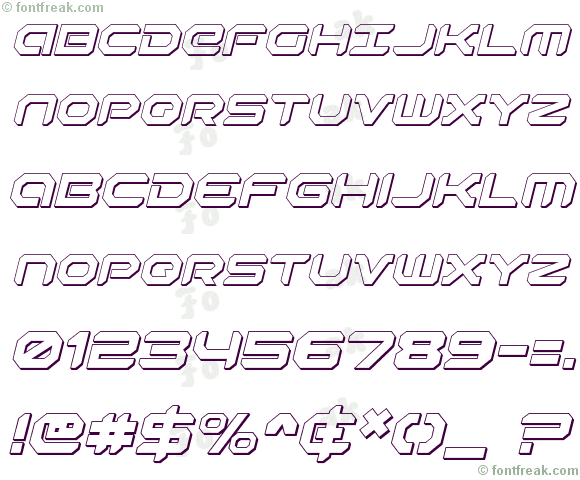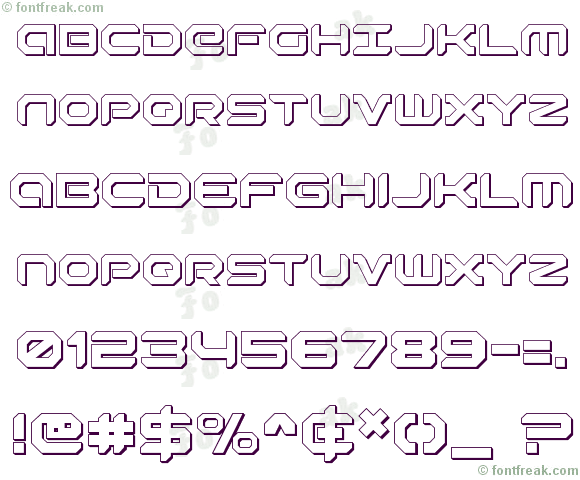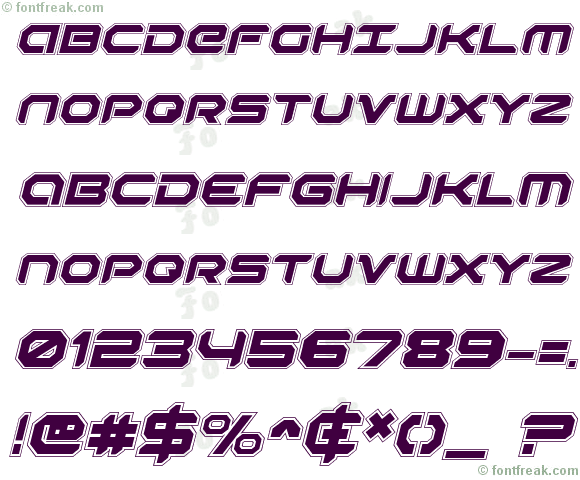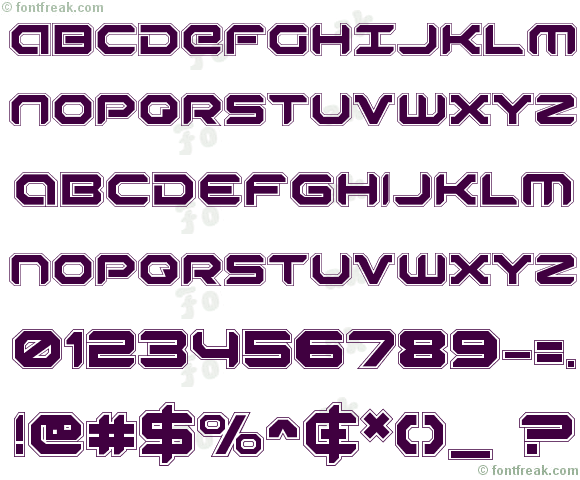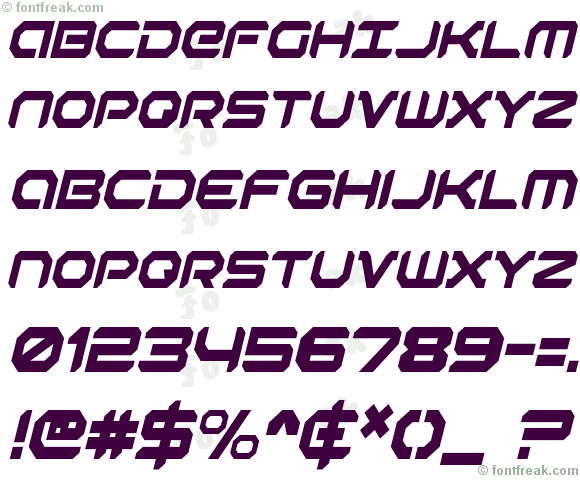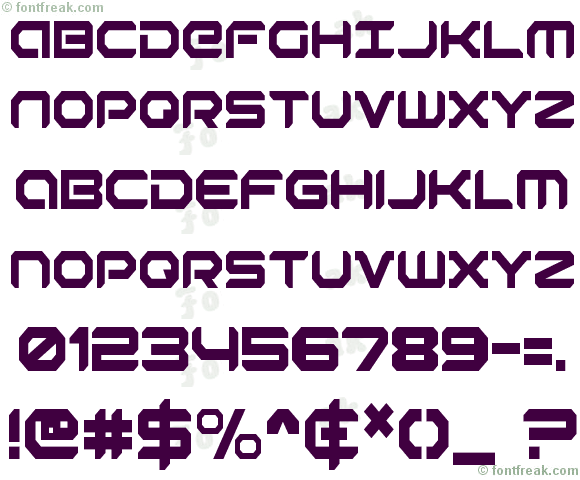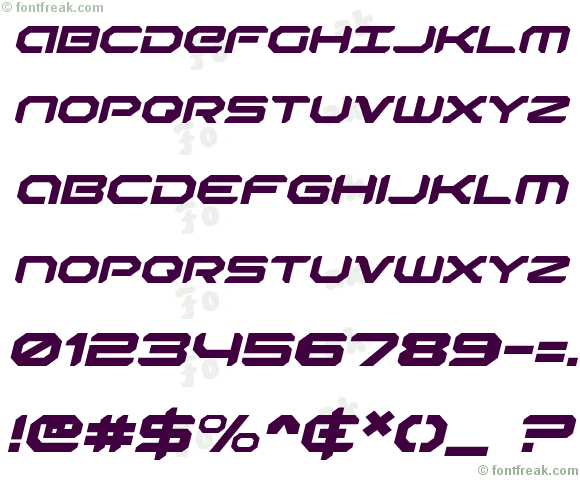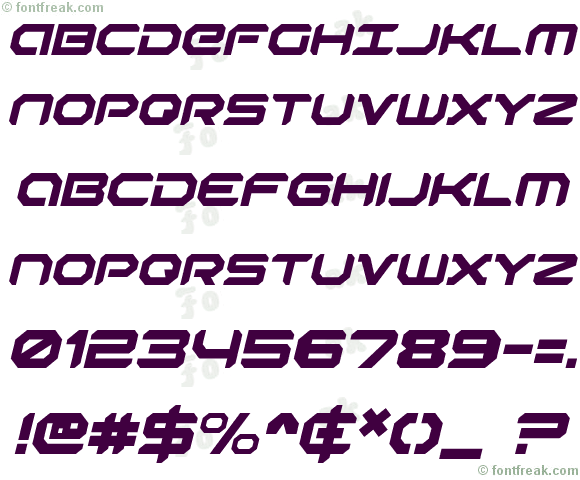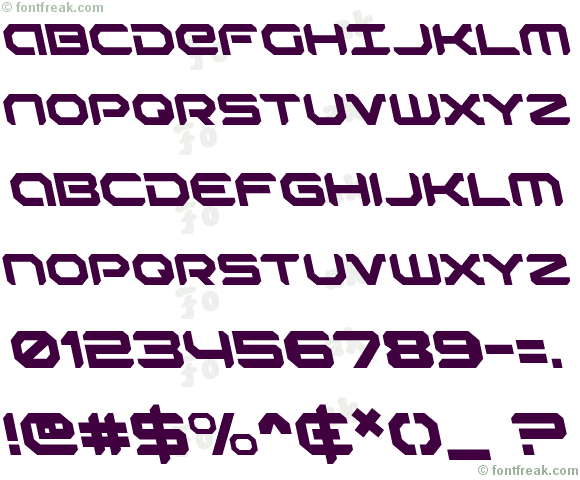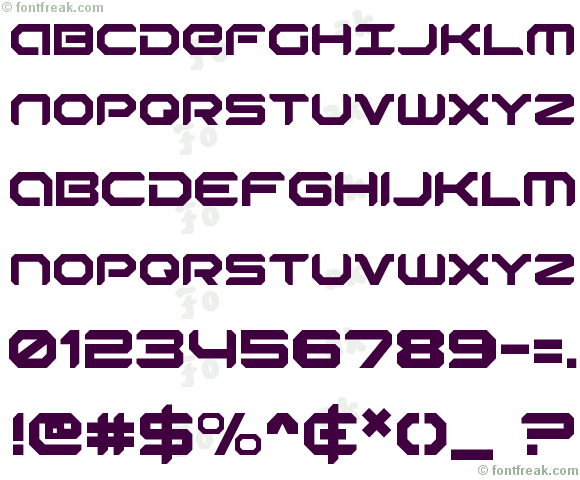
Robotaur
Robotaur Expanded Italic
Robotaur Condensed
Robotaur Condensed Italic
Robotaur Academy
Robotaur Leftalic
Robotaur 3D Italic
Robotaur 3D
Robotaur Academy Italic
Robotaur Italic
Robotaur Expanded
Robotaur by Daniel Zadorozny is a striking display font that captivates with its bold, geometric design. Released in 2008 under the freeware license, this font showcases a unique blend of modern aesthetics and playful creativity. Its stroke weight is consistent and robust, giving it a commanding presence, while the condensed form allows for effective use in tight spaces. The letterforms exhibit a slight italic lean, enhancing the dynamic feel of the typeface. The visual characteristics include sharp angles and a three-dimensional quality, making it stand out in any design context.
Ideal for an array of creative projects, Robotaur shines in use cases such as movie posters, video game branding, and tech-related graphics. Its futuristic vibe makes it a great choice for digital media, while its boldness ensures it captures attention on printed materials like flyers and promotional banners. Small business owners looking to establish a strong brand identity will find this font particularly effective for logo design and packaging. Additionally, graphic designers and content creators will appreciate its versatility in various applications.
The target audience for Robotaur includes graphic designers, small business owners, and content creators who seek a font that combines style with functionality. Its unique design elements make it suitable for those wanting to convey a sense of innovation and modernity.
What sets the Robotaur font apart is its ability to balance readability with artistic flair. This font offers a distinctive voice that can transform any project into a visually engaging experience. For those interested in exploring this unique typeface, the Robotaur font free download provides an excellent opportunity to integrate its bold character into various design endeavors.